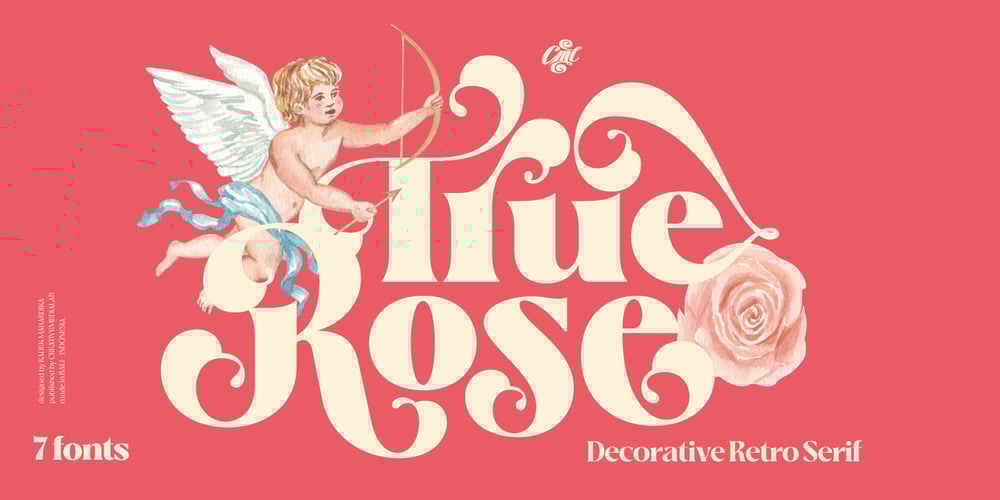
True Rose Font Family was designed by Kadek Mahardika and published by Creativemedialab. True Rose contains 7 styles and family package options. True Rose is a decorative serif family. It contains seven weights from thin to black. Vintage retro style combined with simple Victorian ornaments makes the lettering look neat and clean, perfect for your heading, title, or branding projects.